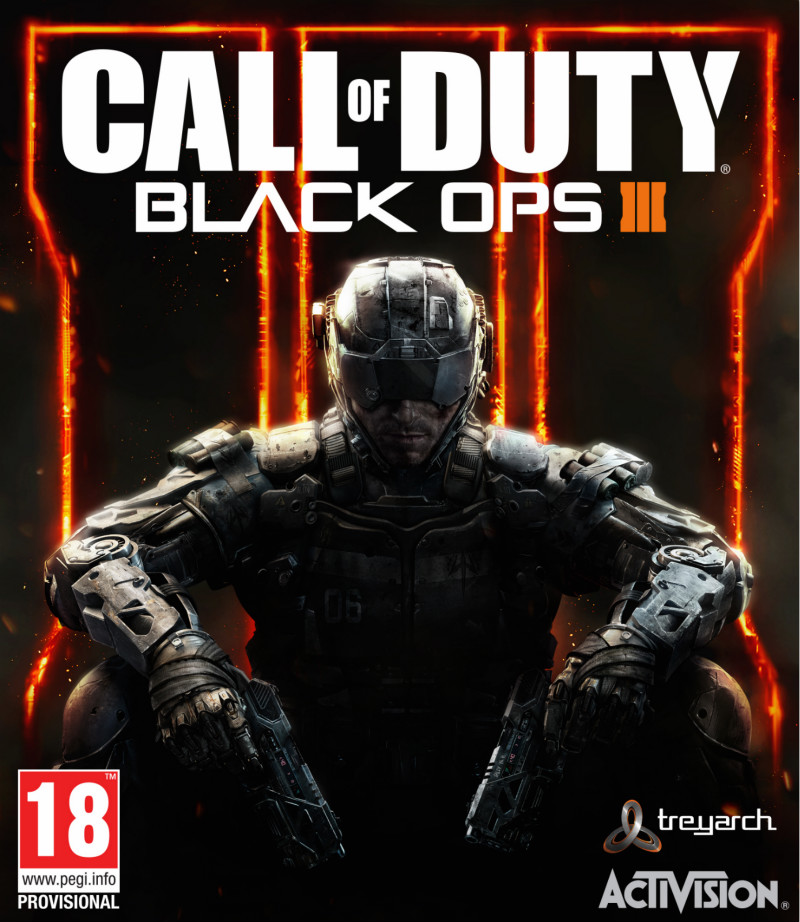
Call of Duty Black Ops III Font
Fonts in UseCall of Duty: Black Ops III is a first-person shooter game that was released in 2015. The game features both a single-player campaign mode and a multiplayer mode and is set in a dystopian future where technology and human biology have merged.
The logo of Black Ops III video game utilizes two different fonts. The "Call of Duty" portion resembles the partially stenciled Call of Ops Duty font created by Nal Games, which is based on the Impact typeface. The "Black Ops III" portion is similar to the font used in Black Ops 2. Both are available for free download from the Fonts Used Section.